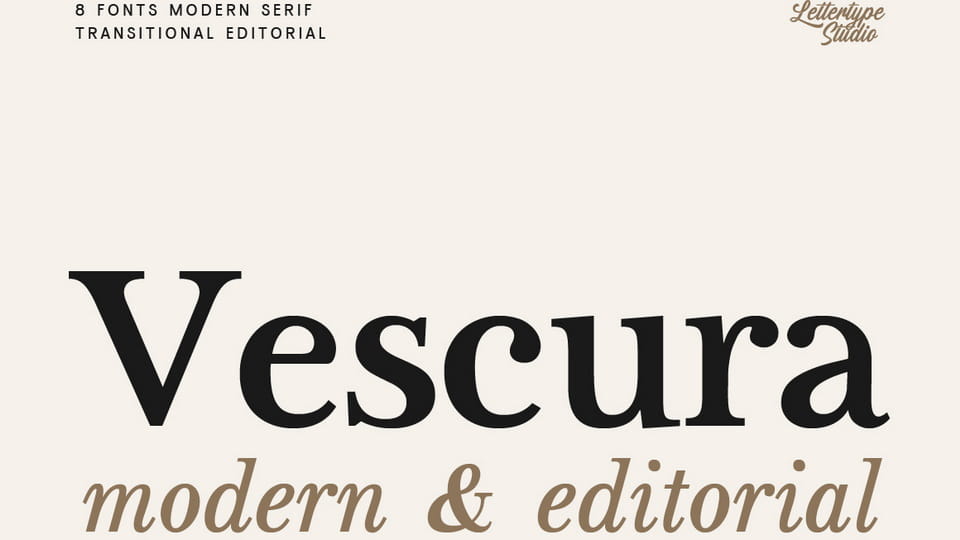
Download Vescura font, a modern transitional serif typeface defined by controlled contrast, balanced proportions, and a refined editorial tone. Its design bridges classical serif foundations with contemporary precision